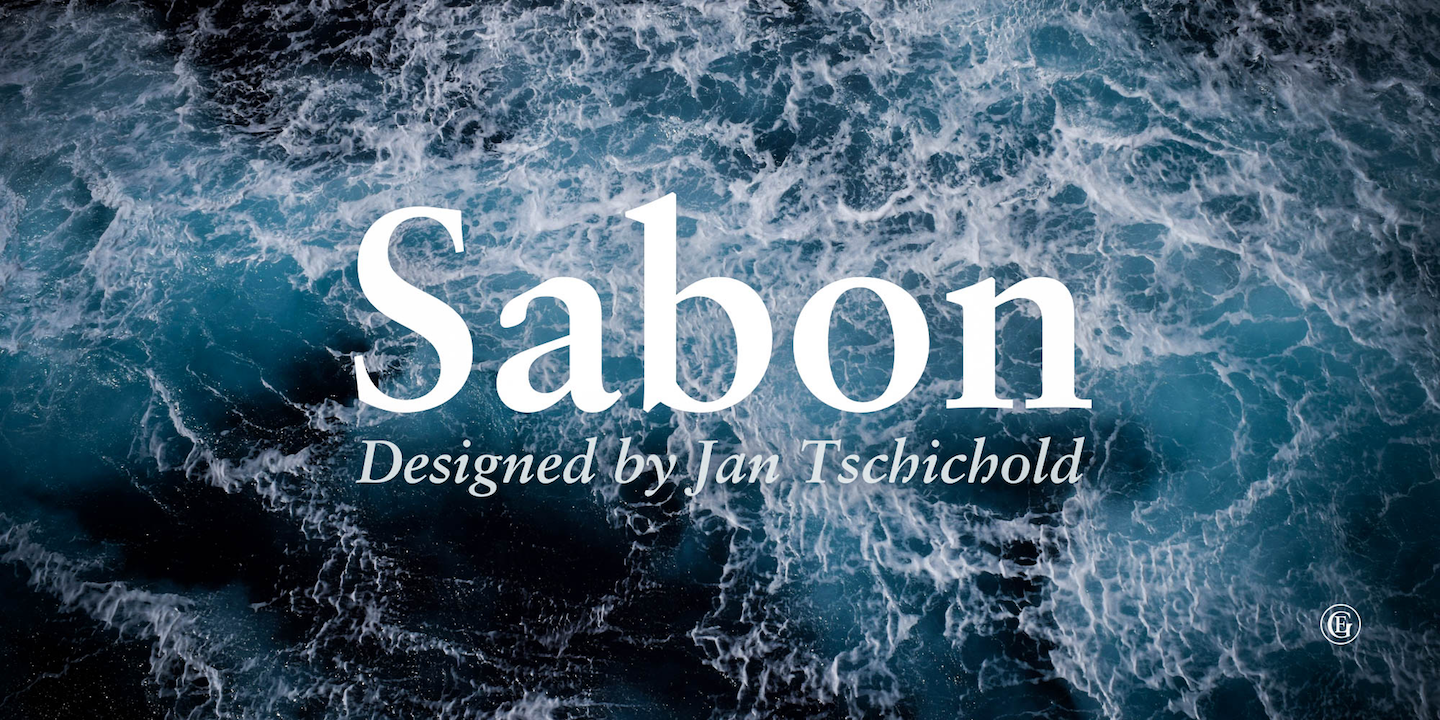
Sabon Font is ideal for premium book publishing, literary magazines, academic journals, fine art catalogs, classical music programs, philosophical texts, poetry collections, luxury brand communications, cultural institution materials, and scholarly publications that demand exceptional readability and Renaissance-inspired elegance.
What makes Sabon Font truly exciting is its masterful revival of 16th-century typographic artistry combined with modern technical precision that creates an unparalleled reading experience. This extraordinary typeface draws inspiration from Claude Garamond's legendary designs while incorporating contemporary refinements that ensure optimal performance across all media formats. The font's humanist character and classical proportions make it perfect for projects that require both scholarly authority and aesthetic sophistication rooted in European typographic tradition.
The Sabon Font family includes essential weights and styles: Regular, Italic, Bold, and Bold Italic variations that preserve the authentic Renaissance character. Each family member maintains the distinctive humanist serif qualities while offering complete flexibility for traditional publishing and classical design applications. The comprehensive character set supports multiple European languages and traditional typographic conventions, making it suitable for international scholarly publications.